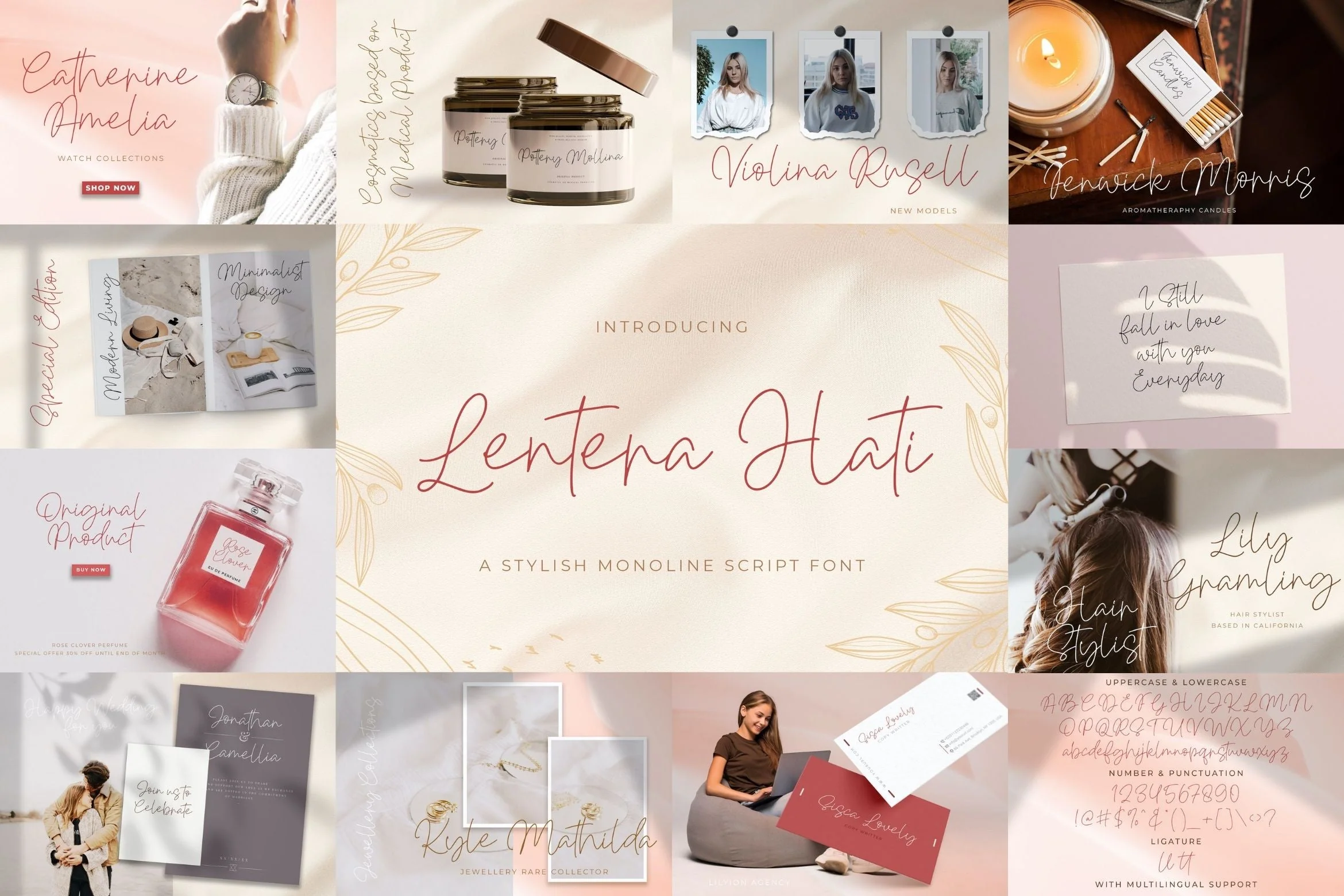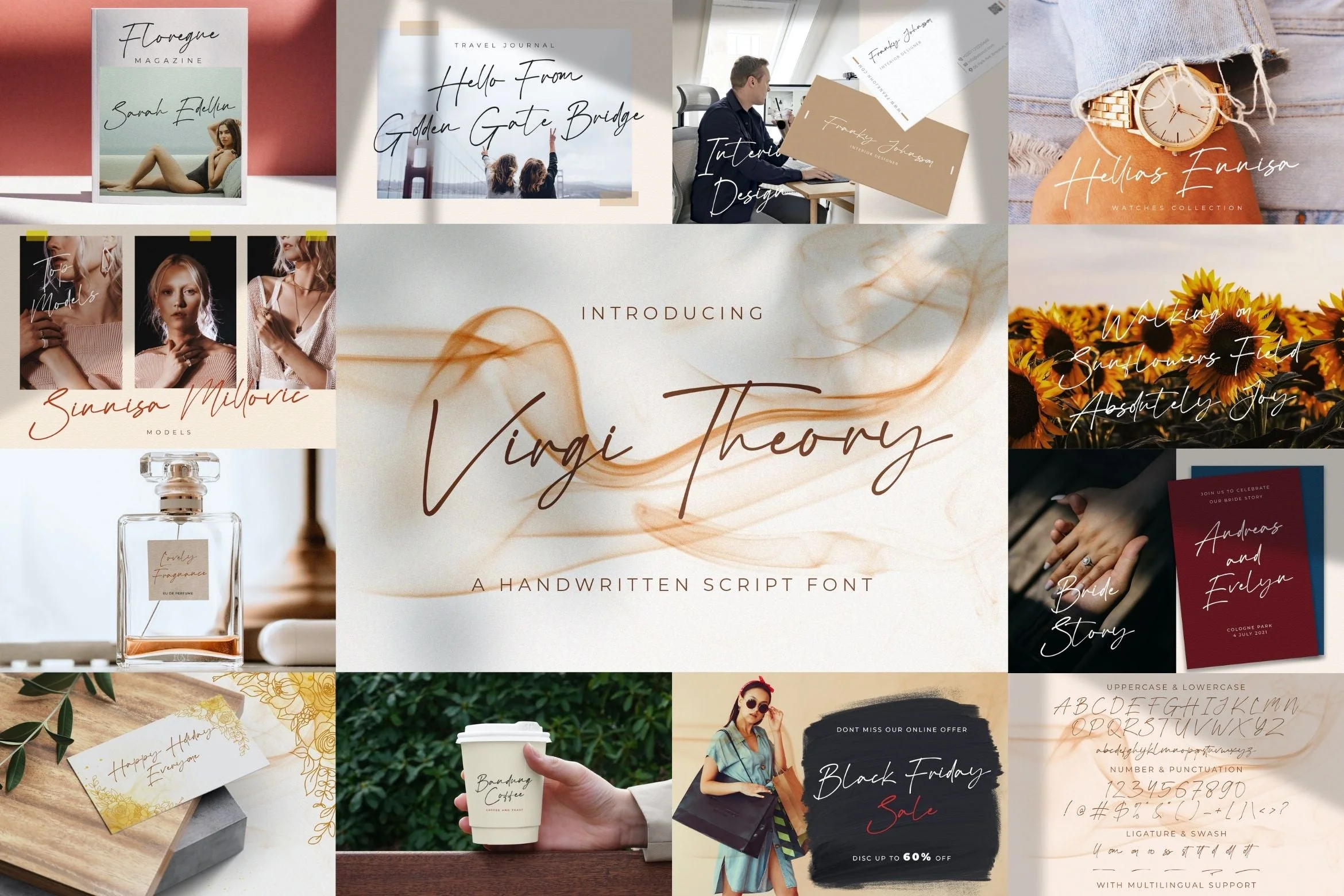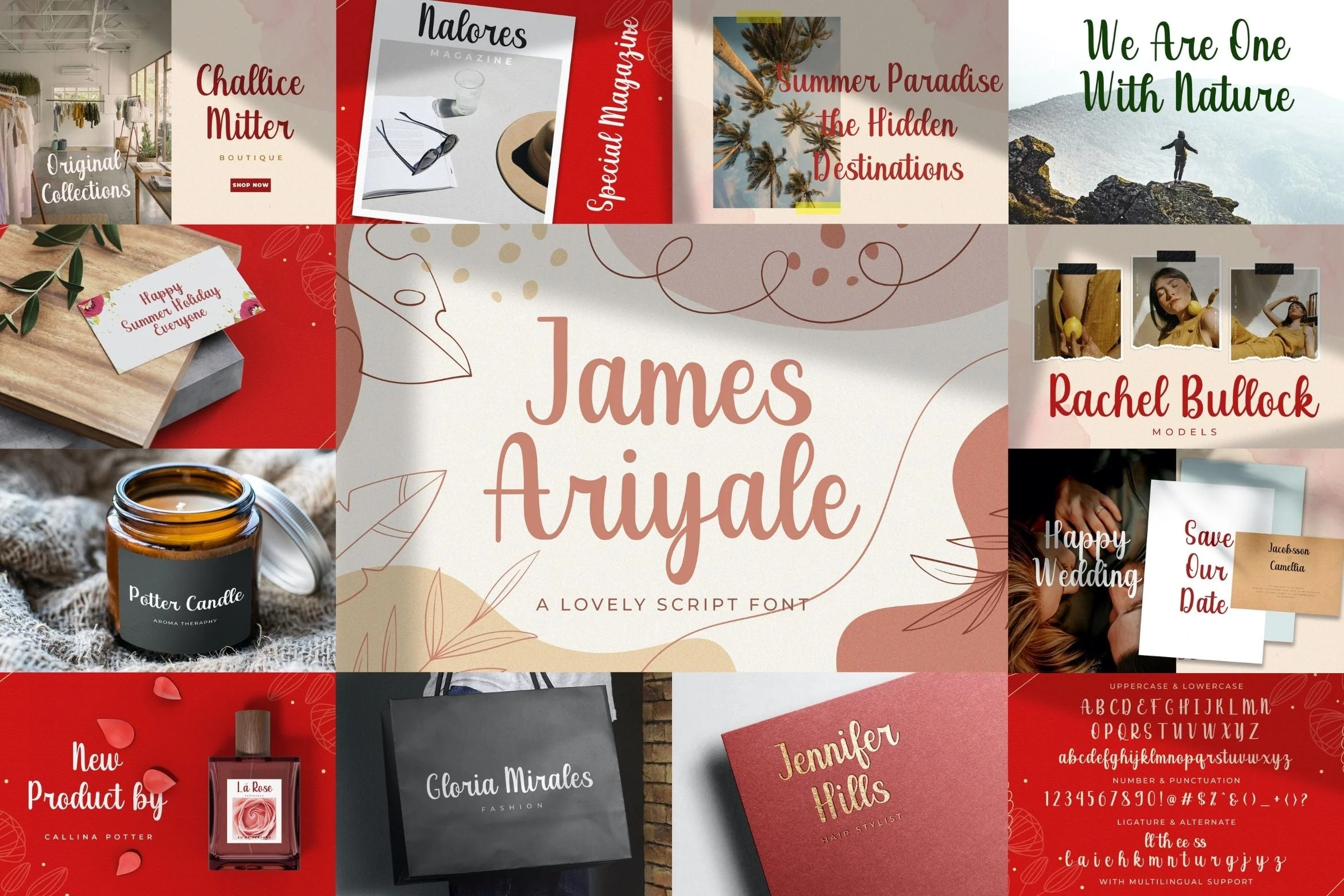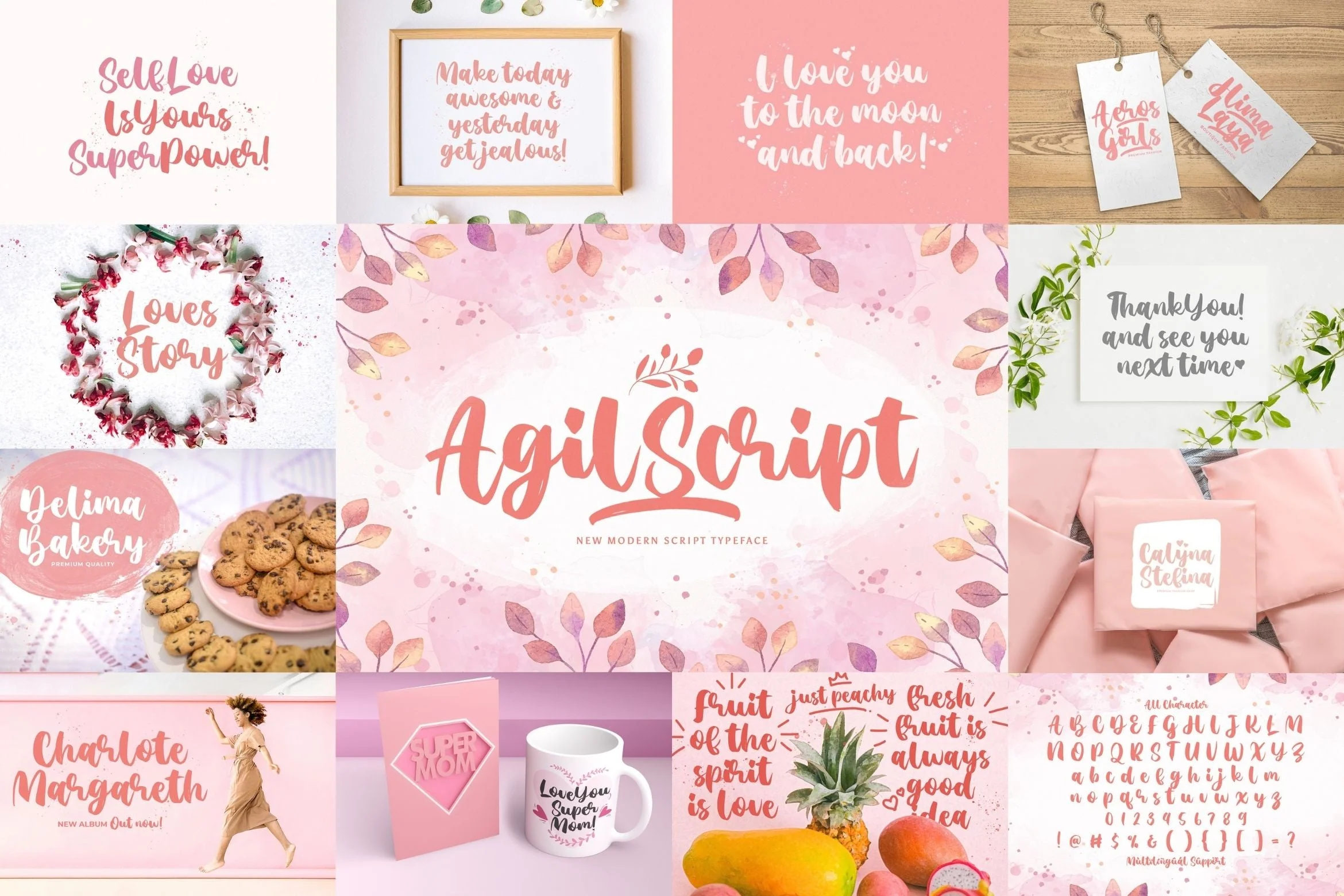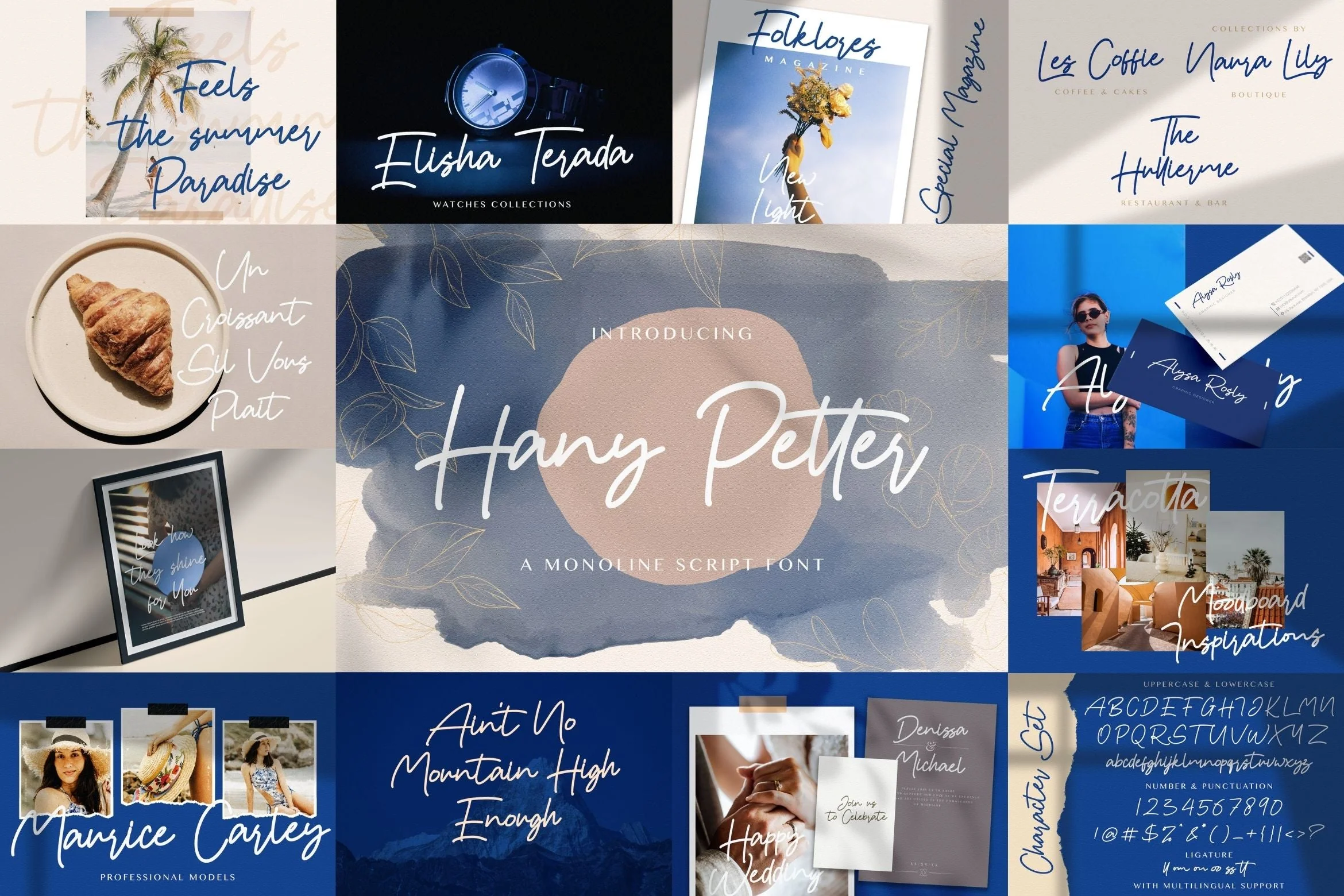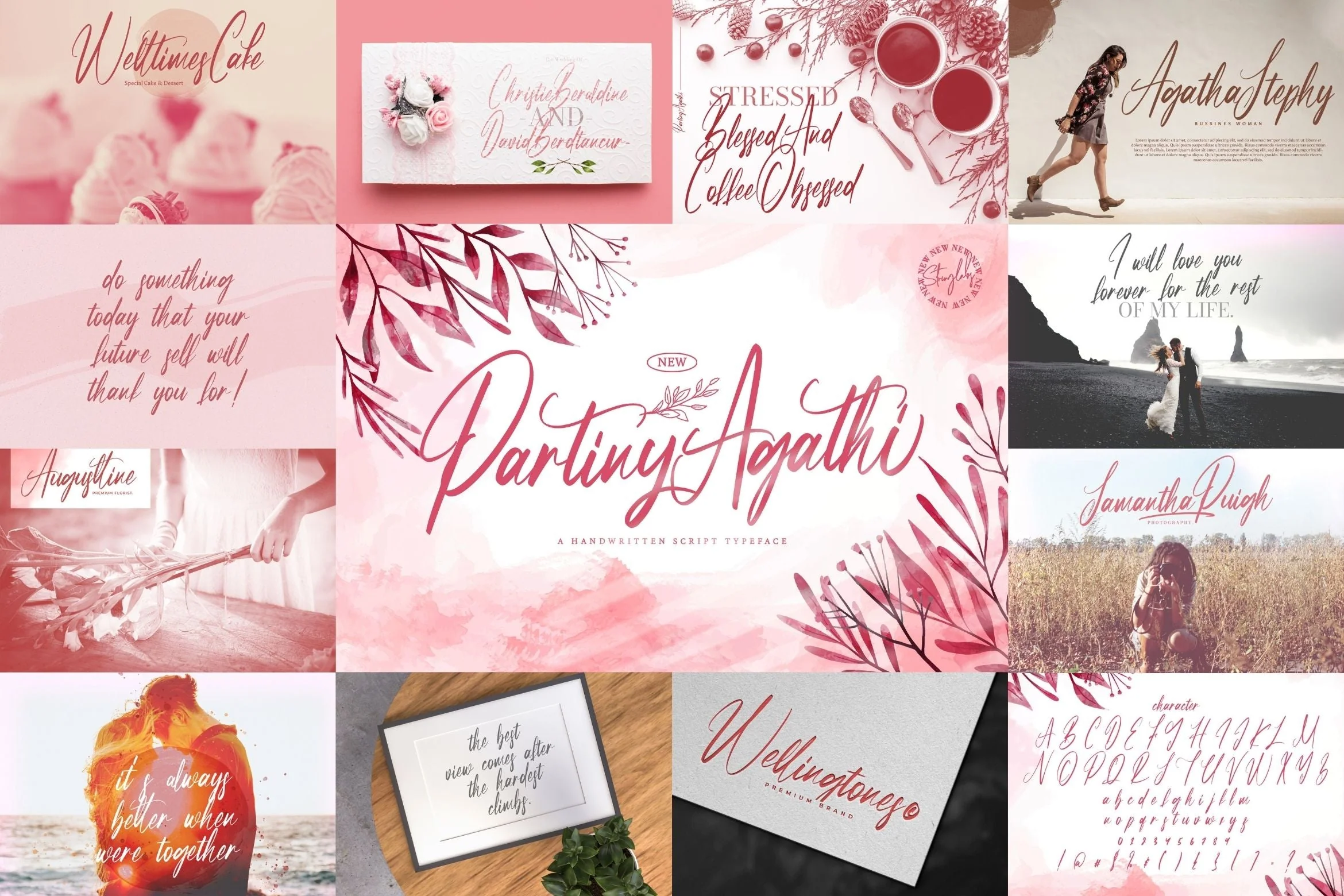
Handwritten Font Bundle Vol 1
Handwritten Font Bundle Vol 1 is a delicate, elegant and flowing handwritten font. This font bundle contains 8 high quality handwritting script font, it will look simply magical in a wide range of design projects, and also that will look particularly adept when used in logos, branding, packaging design, and much more. It has beautiful and well balanced characters and as a result, it matches a wide pool of designs. Add it to your most creative ideas and notice how it makes them come alive!
1. Partiny Agathi
2. Hany Petter
3. Bezitta
4. Agil Script
5. Resttu Pagi
6. James Ariyale
7. Virgi Theory
8. Lentera Hati